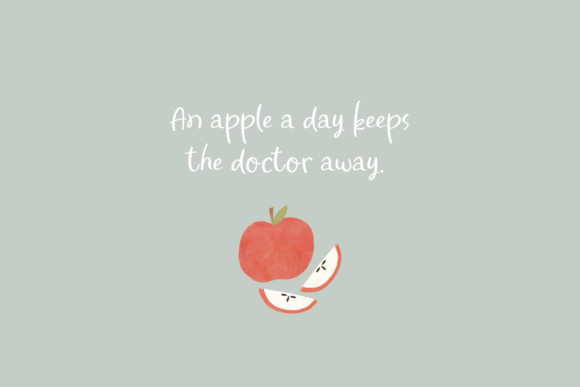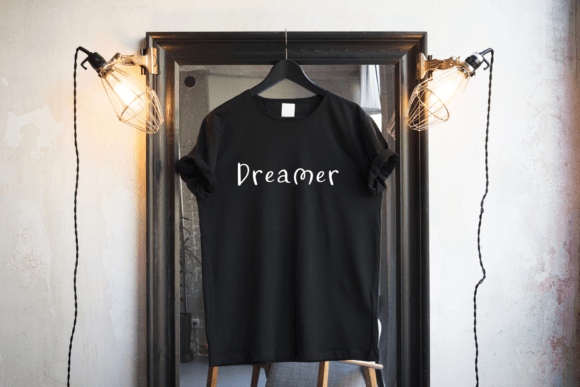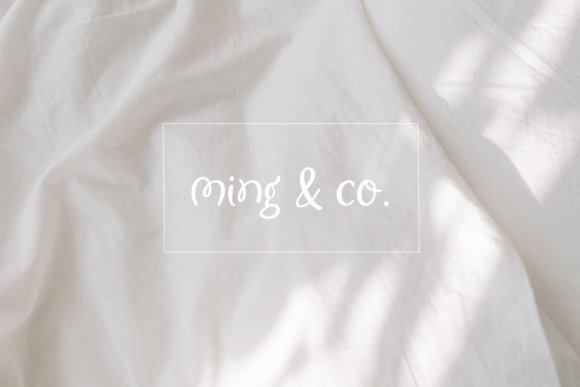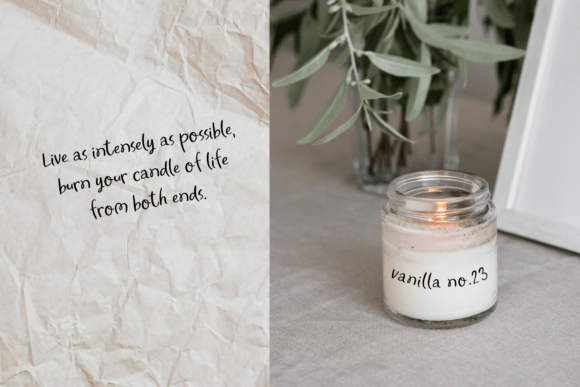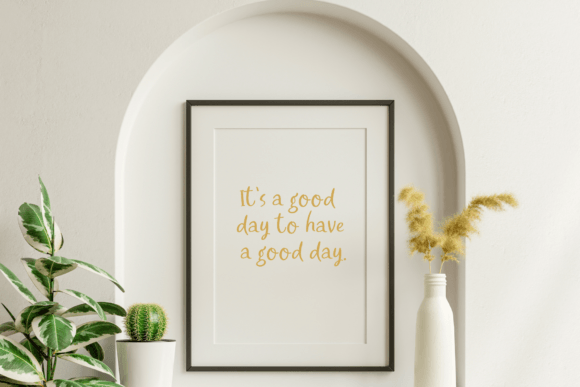
Introduction to Jumping Margot Font
Have you ever stared at a blank canvas, wondering how to bring a spark of creativity to your design? We’ve all been there – searching for that perfect font to elevate our work from ordinary to extraordinary. For designers like us, finding the right font can be a game-changer. That’s why we’re excited to introduce you to the delightful Jumping Margot Font, a free download that’s sure to add a touch of whimsy to your creative projects.
With its playful energy and charming aesthetic, Jumping Margot Font is the perfect addition to any design resource. Whether you’re working on a greeting card, social media graphic, or branding material, this high-quality font is sure to bring a smile to your audience’s faces. Plus, with its transparent background, you can easily customize it to fit your design needs.
Key Features of Jumping Margot Font
- High-quality, unique design with a playful and whimsical feel, ideal for creative projects.
- Designed by a professional typographer, offering a unique and expertly crafted font experience.
- Perfect for use in digital design, such as website headers, social media graphics, and other creative projects.
Honest Review: Jumping Margot Font
I recently stumbled upon Jumping Margot Font while searching for high-quality design resources for a creative project. As a designer, I was excited to try it out and see if it meets my expectations.
What works well: ✨ Jumping Margot Font has a unique, playful feel that’s perfect for projects that need a bit of whimsy. The font is highly customizable, and its transparent background makes it easy to layer over other design elements. The free download was a huge plus, as it allowed me to experiment with the font without breaking the bank.
What doesn’t work well: ⚠️ While Jumping Margot Font is great for creative projects, it may not be the best choice for professional or formal designs. The font’s playful feel can come across as unprofessional in certain contexts. Additionally, the font’s high quality can be overwhelming for some users, and may require some experimentation to get the look just right.
Overall, I’m impressed with Jumping Margot Font and would recommend it to designers looking for a fun, high-quality design resource. Just be sure to use it in the right context!
- Unique, playful feel
- May not be suitable for professional or formal designs
Jumping Margot Font
Jumping Margot Font is a high-quality design resource perfect for creative projects that require a unique touch. This free download offers a transparent background, making it easy to integrate into your design.
Tips for Getting the Most Out of Jumping Margot Font
To get the most out of Jumping Margot Font, use it in conjunction with other design elements to create a cohesive look. Experiment with different font sizes, colors, and arrangements to find the perfect combination for your project.
Jumping Margot Font is perfect for a variety of creative projects, including: logos, business cards, posters, and social media graphics. Its unique style and transparent background make it a versatile design resource.